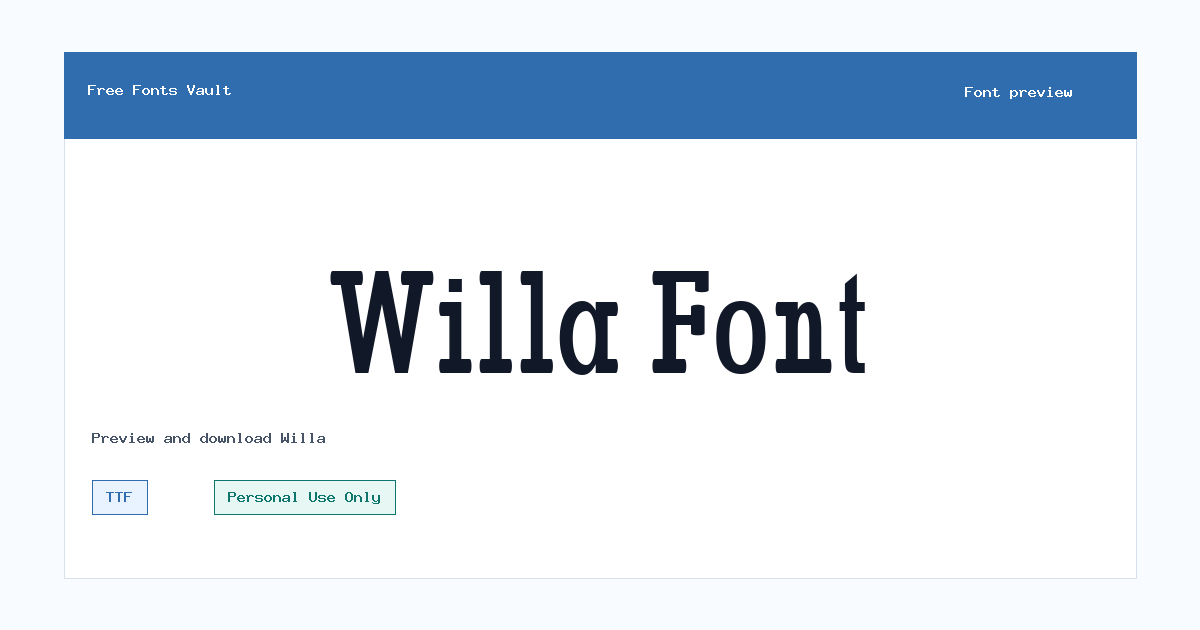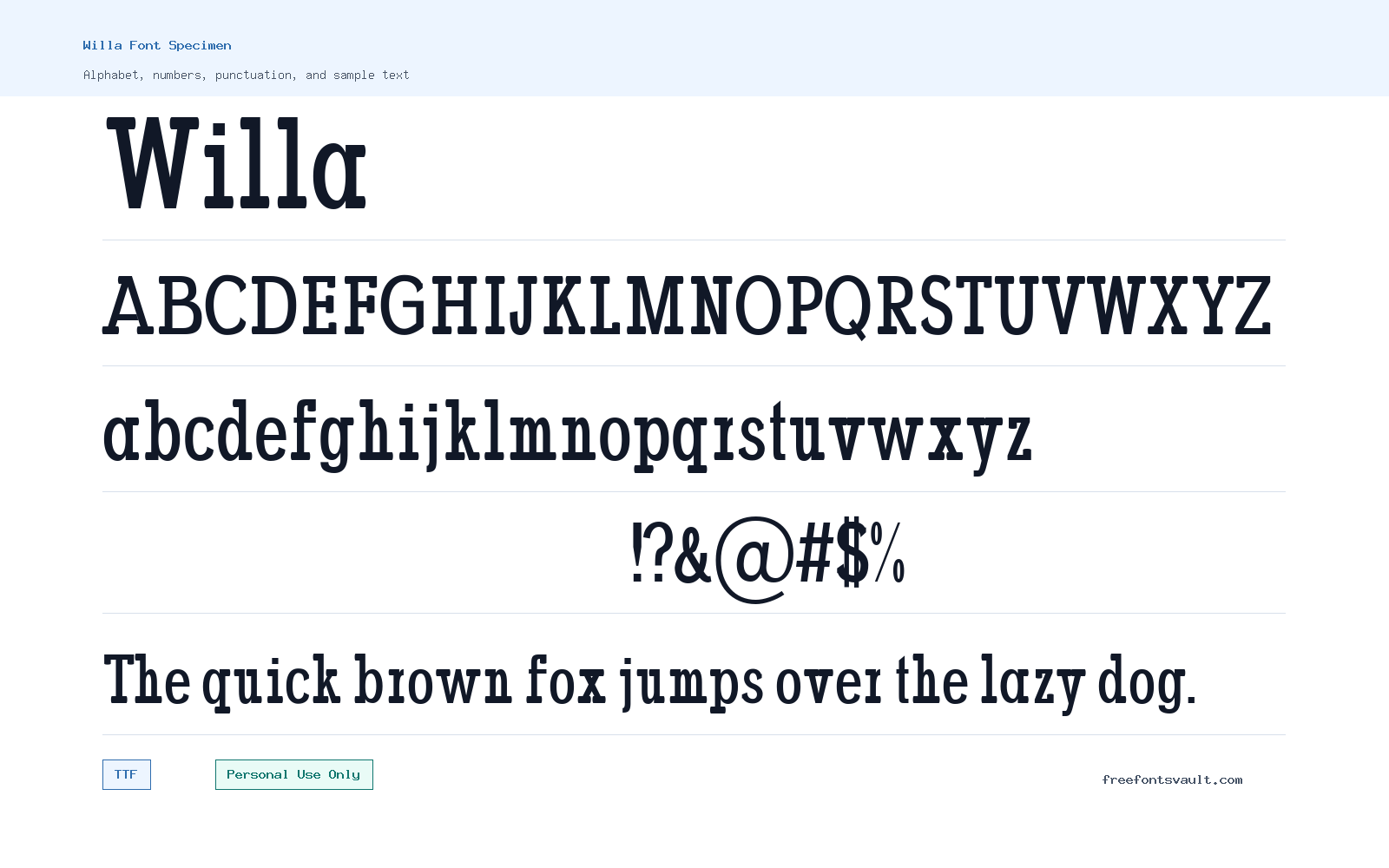
Willa
Willa font.
Willa is a slab serif font with a regular TTF style, made for personal-use design projects where you want sturdy letterforms with a clear display presence.
About Willa
Willa has the practical appeal people often look for in a slab serif: firm shapes, noticeable serifs, and a grounded rhythm that can give short text a more structured feel. Because the downloadable style is a regular weight, it is best approached as a flexible display option rather than a full family with many weights. Try it first in the preview box with the exact words you plan to use, especially if your design depends on a brand name, event title, product label, or short headline. Slab serifs can look confident at larger sizes, but spacing and character fit matter, so testing your own text is the quickest way to see whether Willa matches the tone you need.
For visitor use, Willa makes the most sense in places where the font can be seen clearly: posters, social graphics, invitation headings, craft labels, personal logo sketches, scrapbook titles, and mockups for non-commercial concepts. Keep body copy short or pair it with a simpler sans serif or neutral serif for longer reading. If you use Willa for a headline, let the companion font stay quiet so the slab details do not compete with other strong shapes. Also check punctuation, numbers, and uppercase combinations before committing to a layout, because a single regular TTF file may not cover every typographic need. If you are planning client work, products for sale, advertising, or business branding, review the license terms first and obtain the right commercial permission if required.
- Slab serif styling that works best for short display text, titles, labels, and personal design mockups.
- Personal posters, invitations, social media graphics, scrapbook pages, and decorative headings.
- Short names, labels, quote graphics, packaging mockups, and logo experiments for non-commercial use.
What style of font is Willa?
Willa is presented as a slab serif font. It is most useful for short display text such as headings, labels, and graphic titles.
How should I pair Willa with other fonts?
Pair it with a plain sans serif or a calm text serif. Let Willa handle the headline or focal words, and use the companion font for descriptions or longer text.